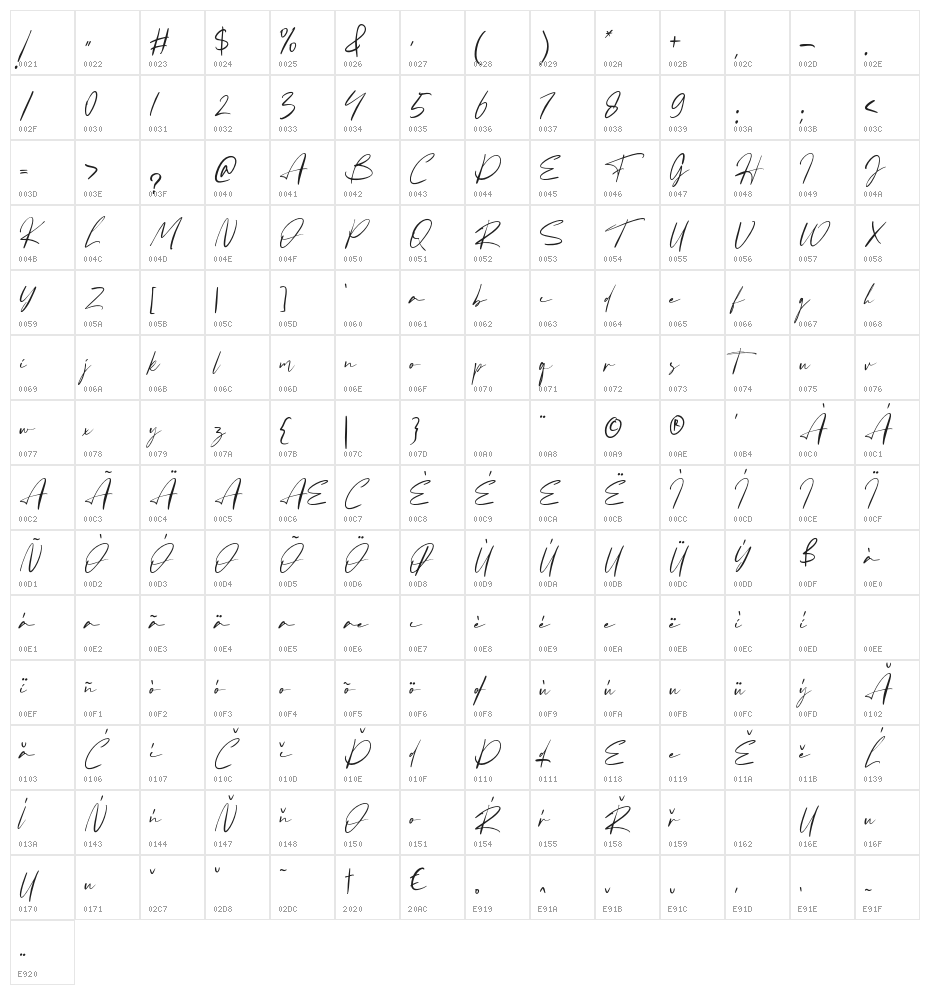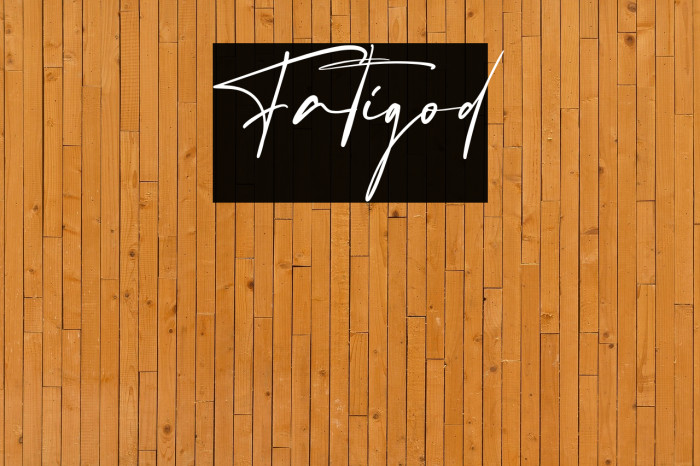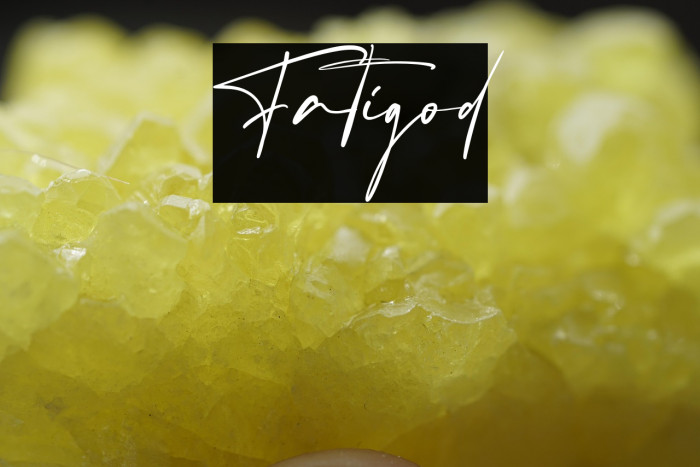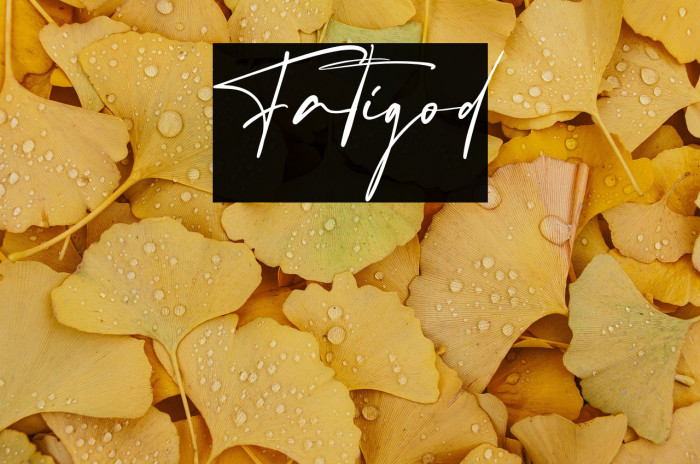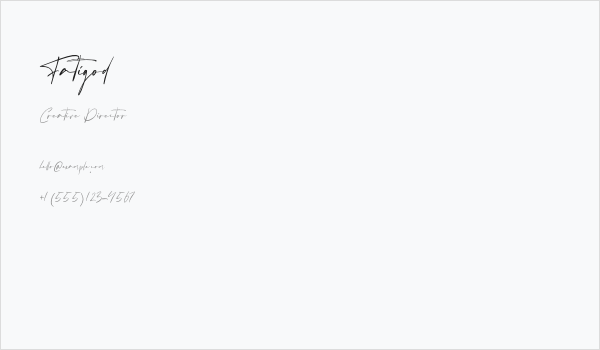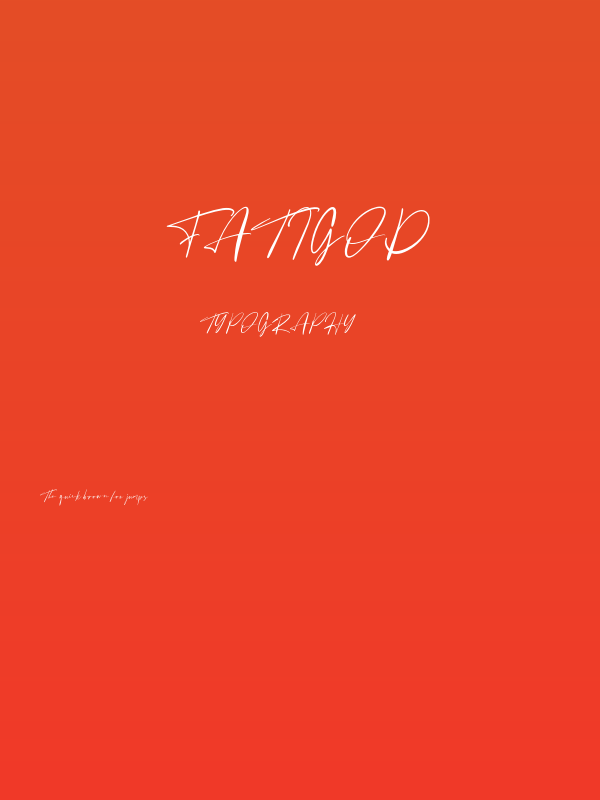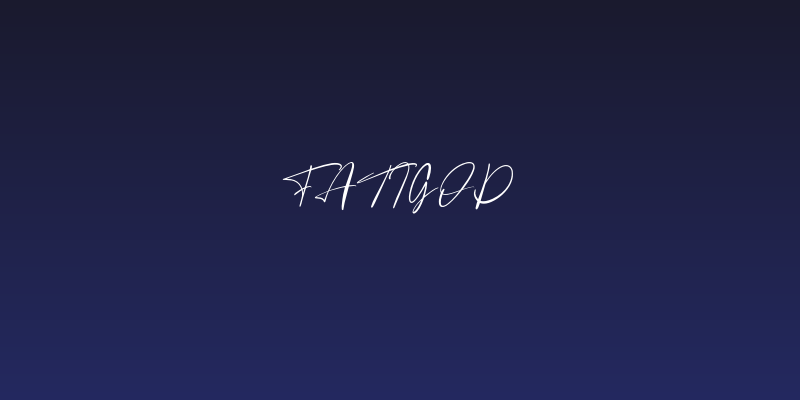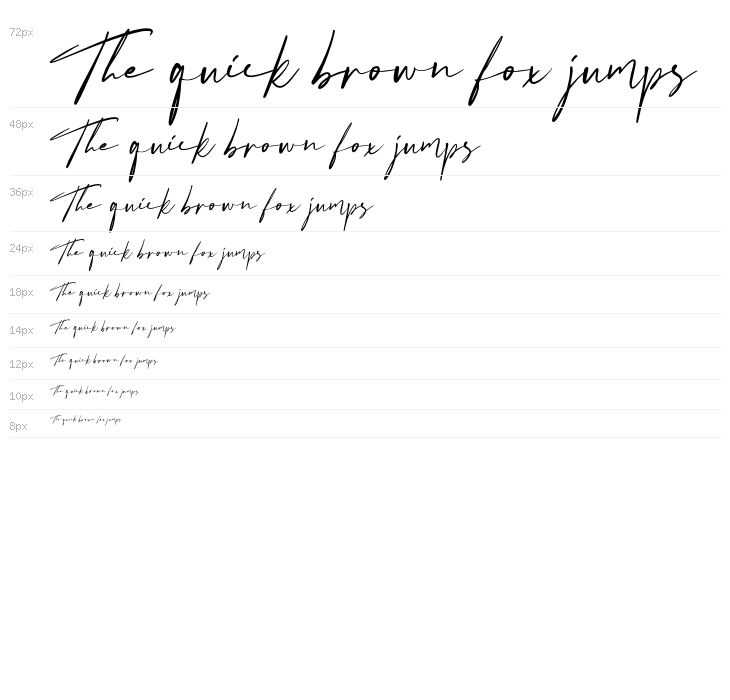
Fatigod Font
Fatigod Description
This font exudes a dynamic and energetic feel with its fluid, cursive style. The letters are elegantly connected, creating a seamless flow that mimics natural handwriting. The strokes are varied, with some letters featuring bold, sweeping lines while others are more delicate and refined. This contrast adds a lively rhythm to the text. The uppercase letters are particularly striking, with their tall, graceful forms, while the lowercase letters maintain a consistent, harmonious appearance. The numerals and special characters are designed to complement the overall aesthetic, ensuring a cohesive look across all text elements.
| Proposed Projects | Ideal for wedding invitations, personal branding, artistic projects, and elegant packaging designs. |